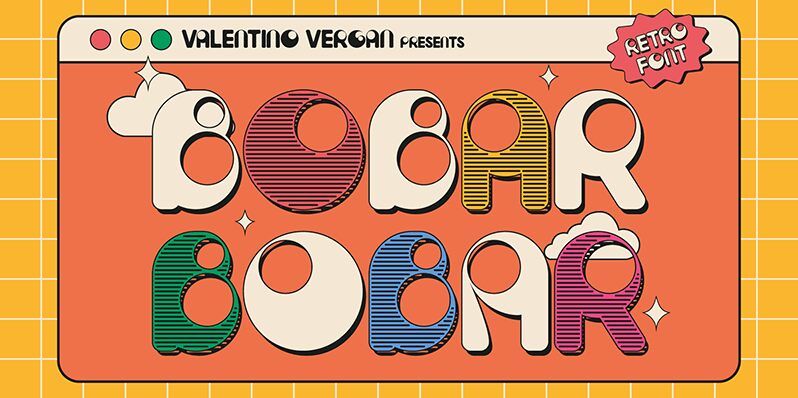
Bobar font designed by Valentino Vergan is a free display font with bold characters that have a groovy retro style. It catches the eye instantly through its chunky shapes and graphic feel which are created using the numerous charming details on each glyph. Although designed to be used all at once, Bobar is just as useful when used in only short texts.
Possible use cases for this freeware typeface include posters, headlines, magazine covers/titles, flyers, brochures, branded merchandise, apparel designs, quotes posts on social media or websites etc.